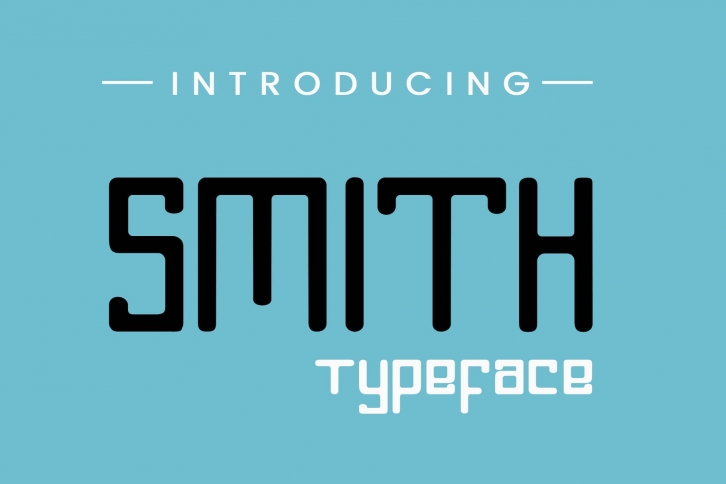
Smith Typeface is a great font that was designed by gumacreative. Imagine the amount of combinations you can create using this font! The archive is 19.35 MB and it was released on April 24, 2018. Smith Typeface looks beautiful on wedding invitations, greeting cards, logos, posters, labels, t-shirt designs, logos, business cards and is perfect for use in ink or watercolor works, fashion, magazines, packaging and food menus, children's books and more!